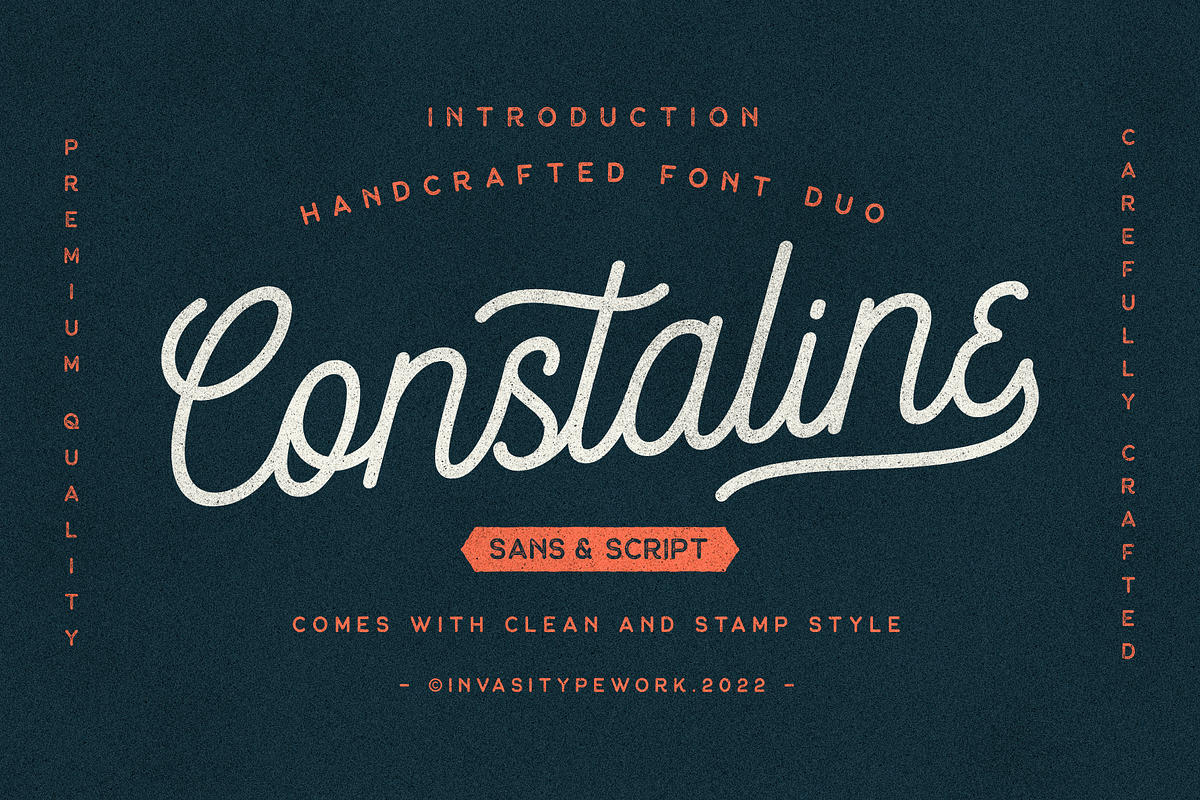
This versatile font is perfect for modern calligraphy projects, minimalist branding, elegant wedding invitations, boutique signage, fashion magazine layouts, contemporary logo design, sophisticated packaging, and clean editorial applications. Its refined character makes it ideal for projects requiring streamlined elegance with handcrafted authenticity.
Constaline Monoline Script Sans Font is exciting because it masterfully combines the flowing beauty of script lettering with the clean precision of monoline construction, creating letterforms that feel both handwritten and perfectly controlled. The font features consistent stroke weight throughout each character, eliminating traditional thick-and-thin variations while maintaining the natural rhythm and connection of authentic script writing. Its innovative approach bridges traditional calligraphy with contemporary minimalist design principles.
The Constaline Monoline Script Sans Font family typically includes multiple weights and stylistic variations, along with connecting ligatures, alternate characters, and decorative elements that enhance the script flow. Many versions feature extended character sets, special punctuation, and OpenType features optimized for professional typography applications.
Whether you're developing contemporary brand identities, minimalist design campaigns, or elegant editorial projects, Constaline Monoline Script Sans Font Free Download provides modern sophistication with handcrafted charm. This typeface transforms ordinary communications into refined statements that appeal to audiences who appreciate both artistic authenticity and clean design aesthetics. Its distinctive character bridges traditional script elegance with contemporary functionality, making it an essential resource for designers who need Constaline Monoline Script Sans Font Free Download that combines timeless beauty with modern versatility.